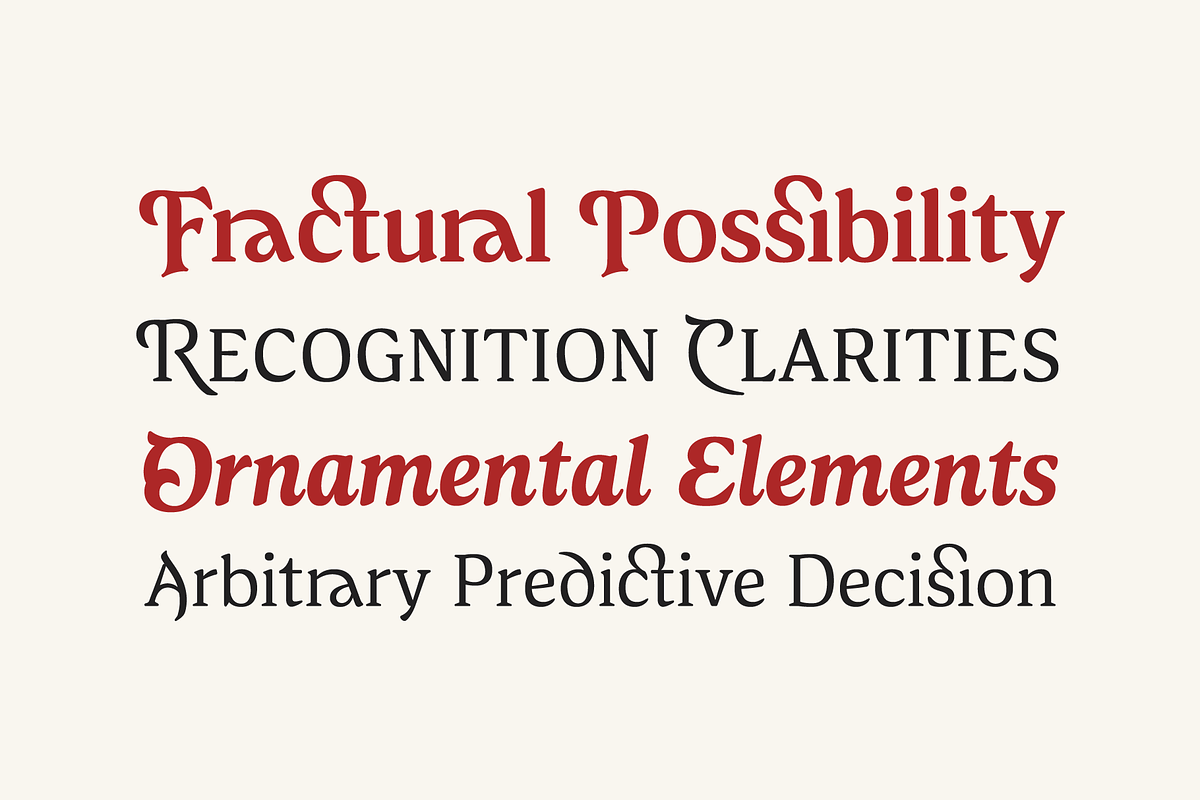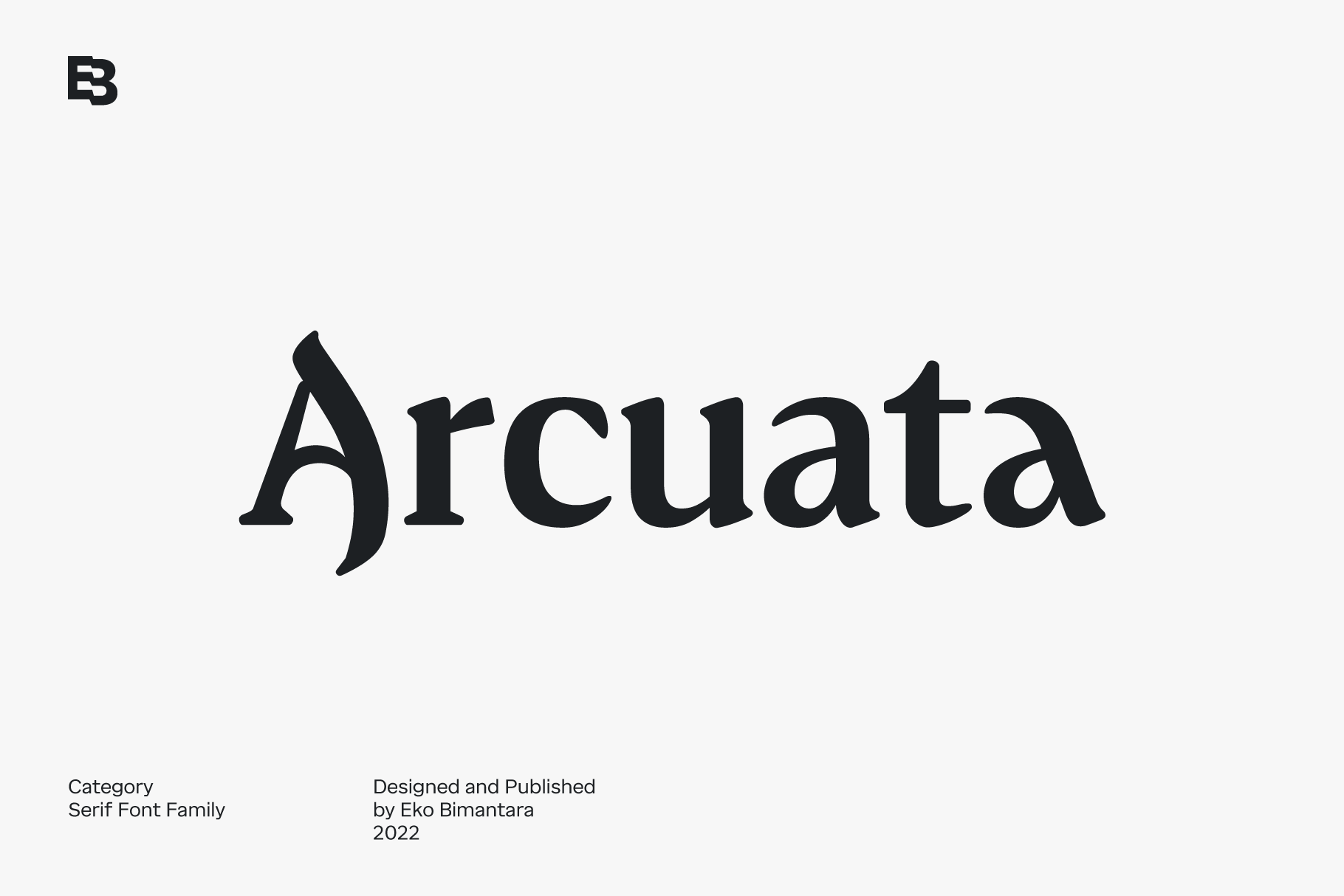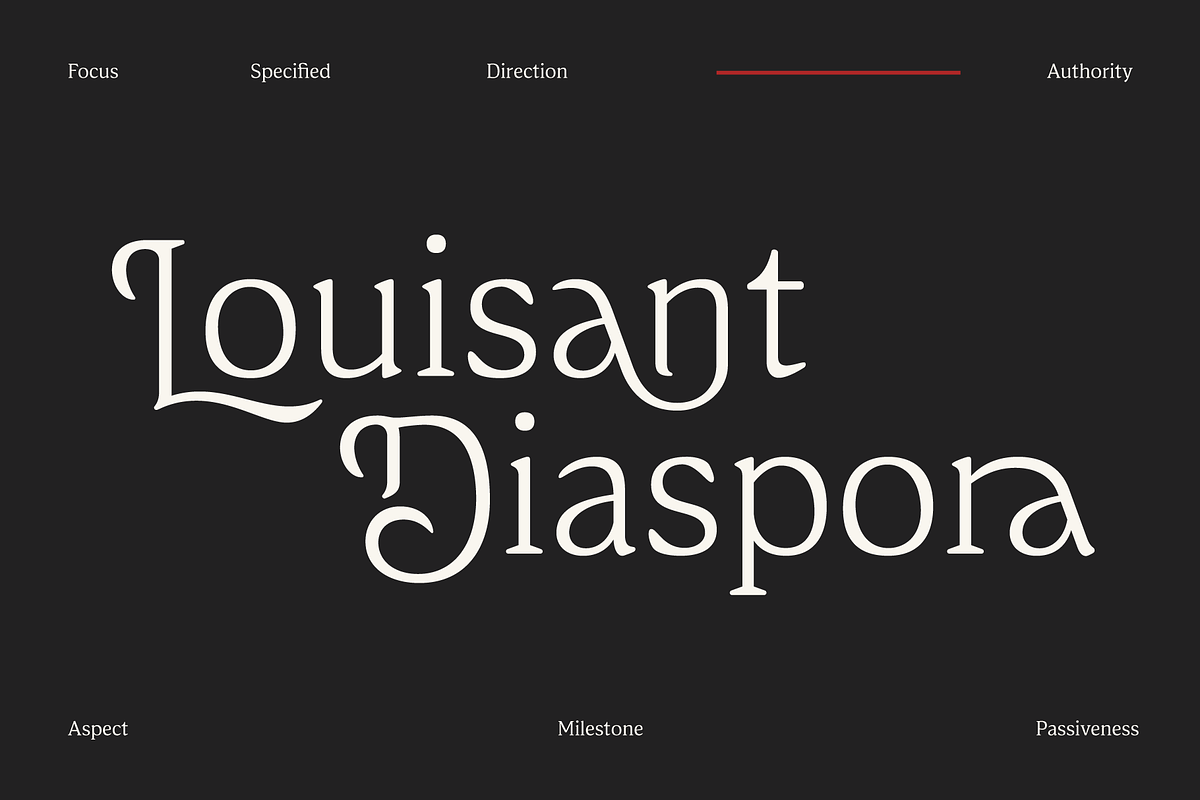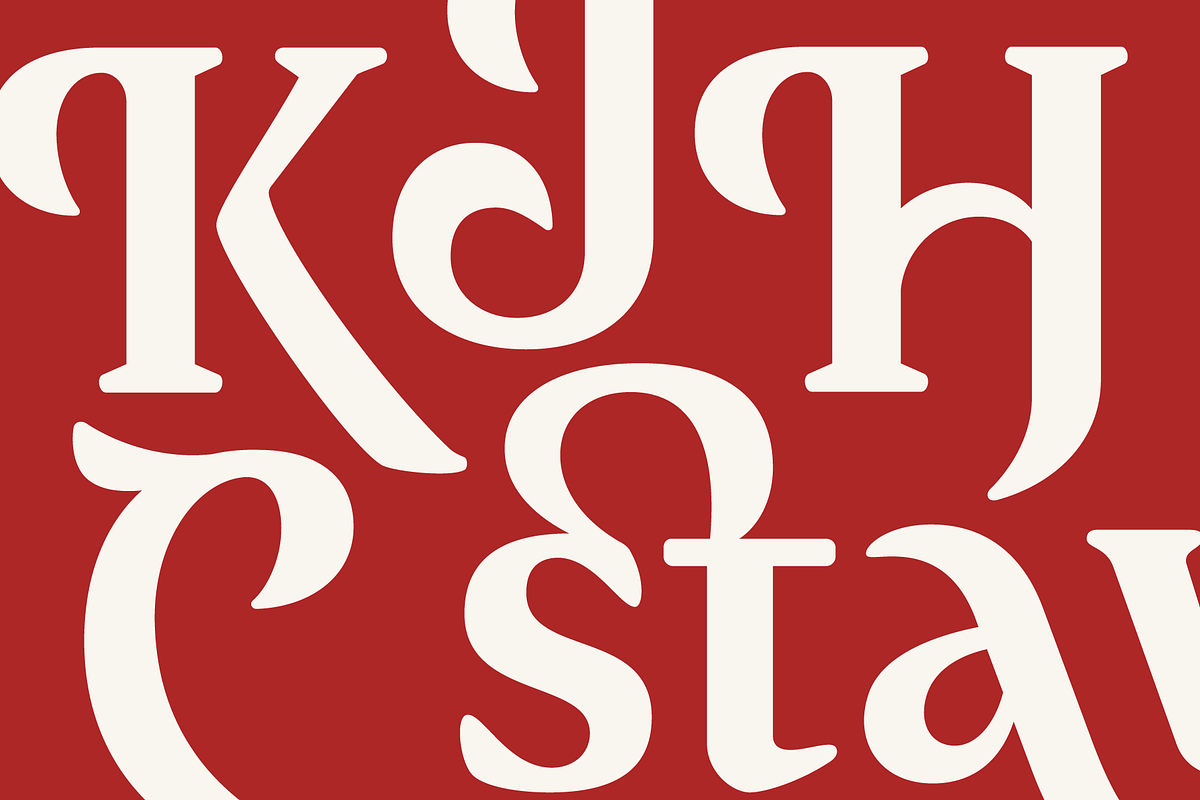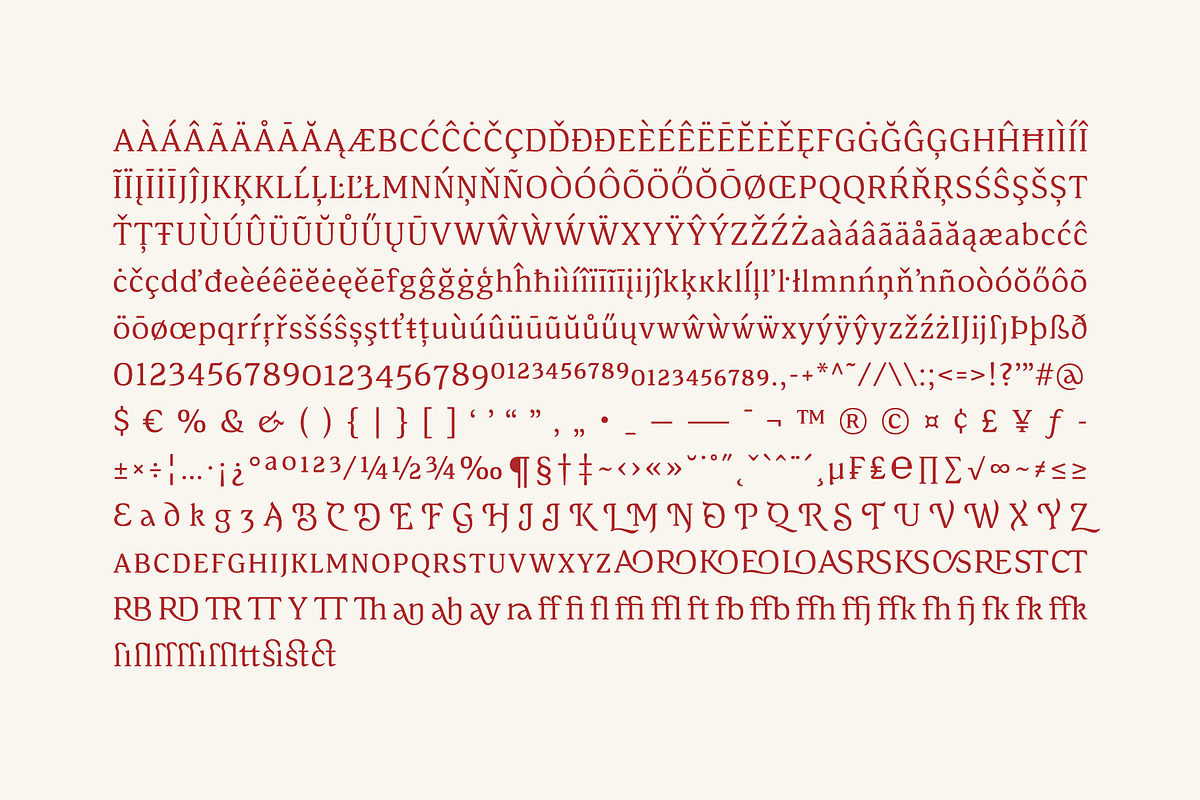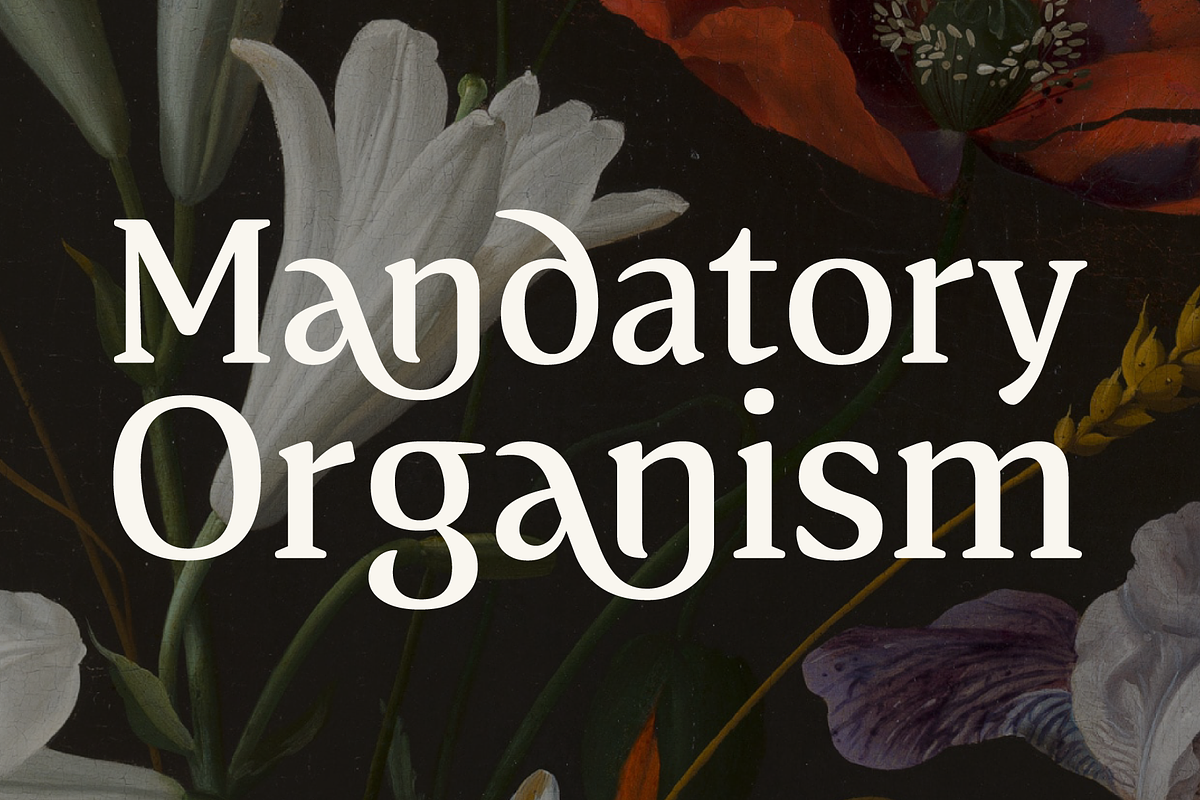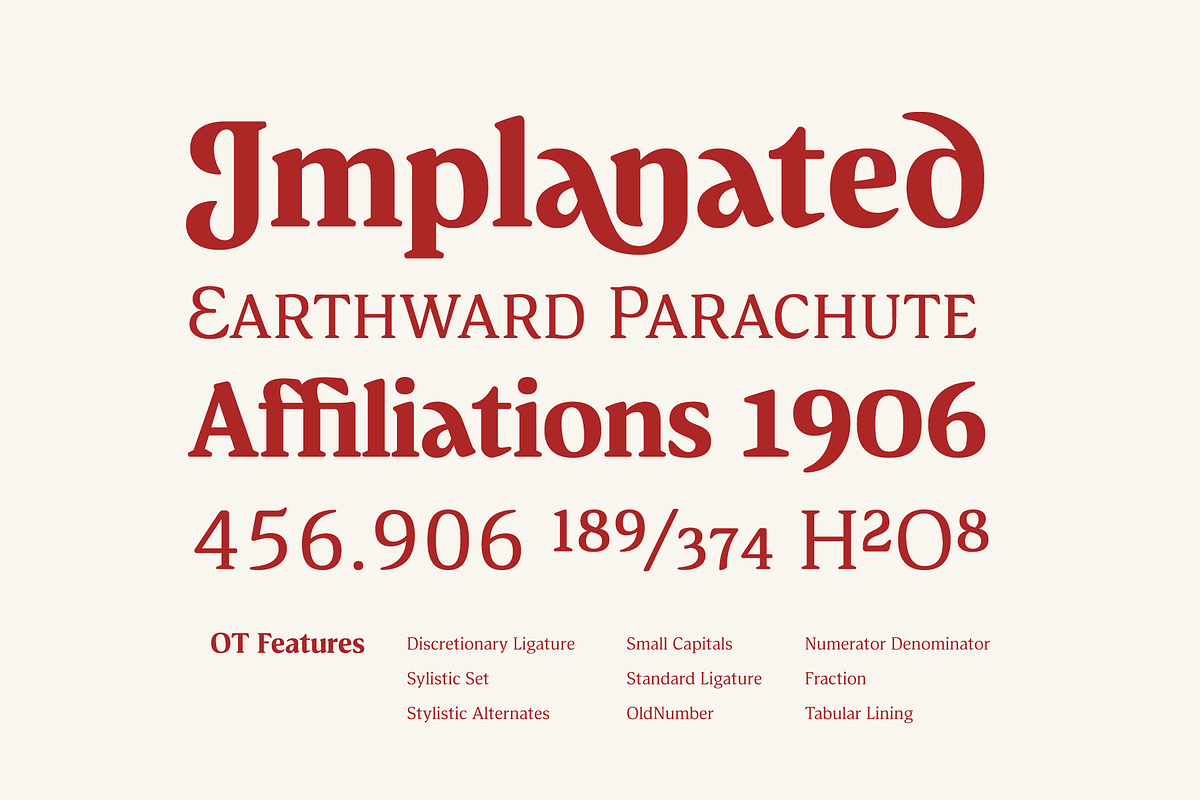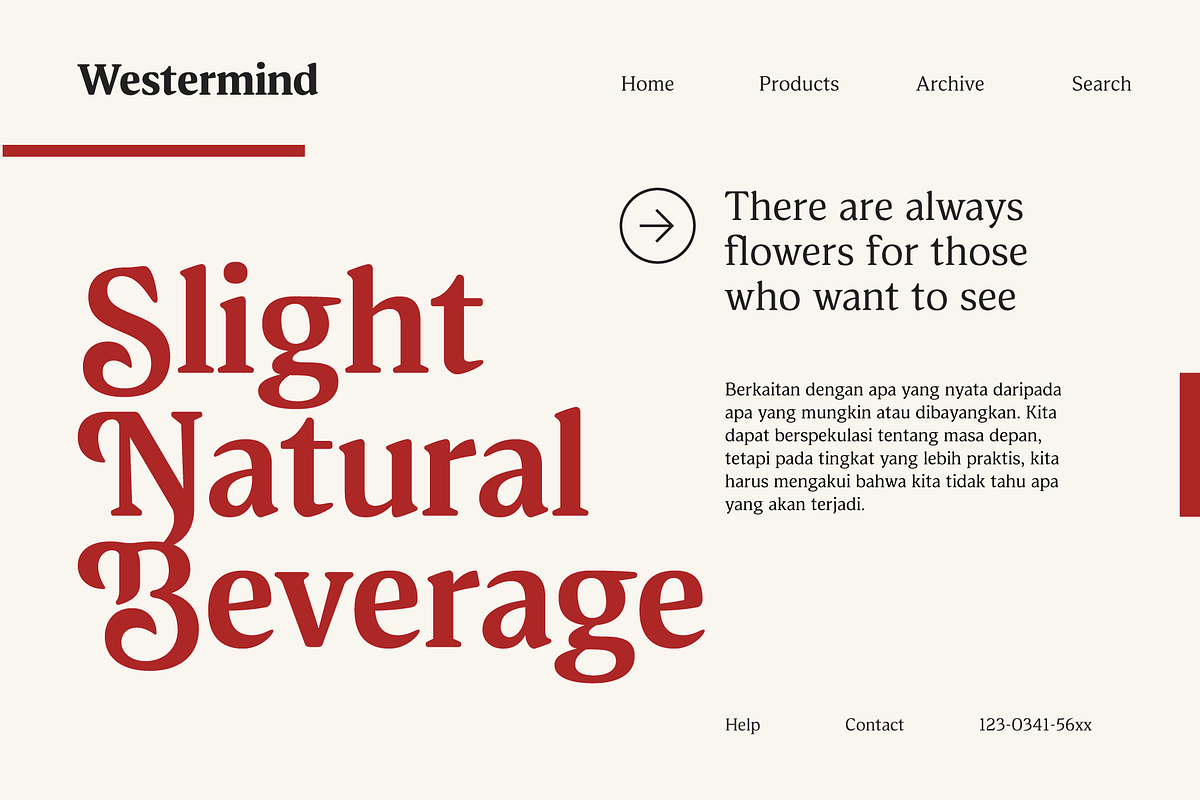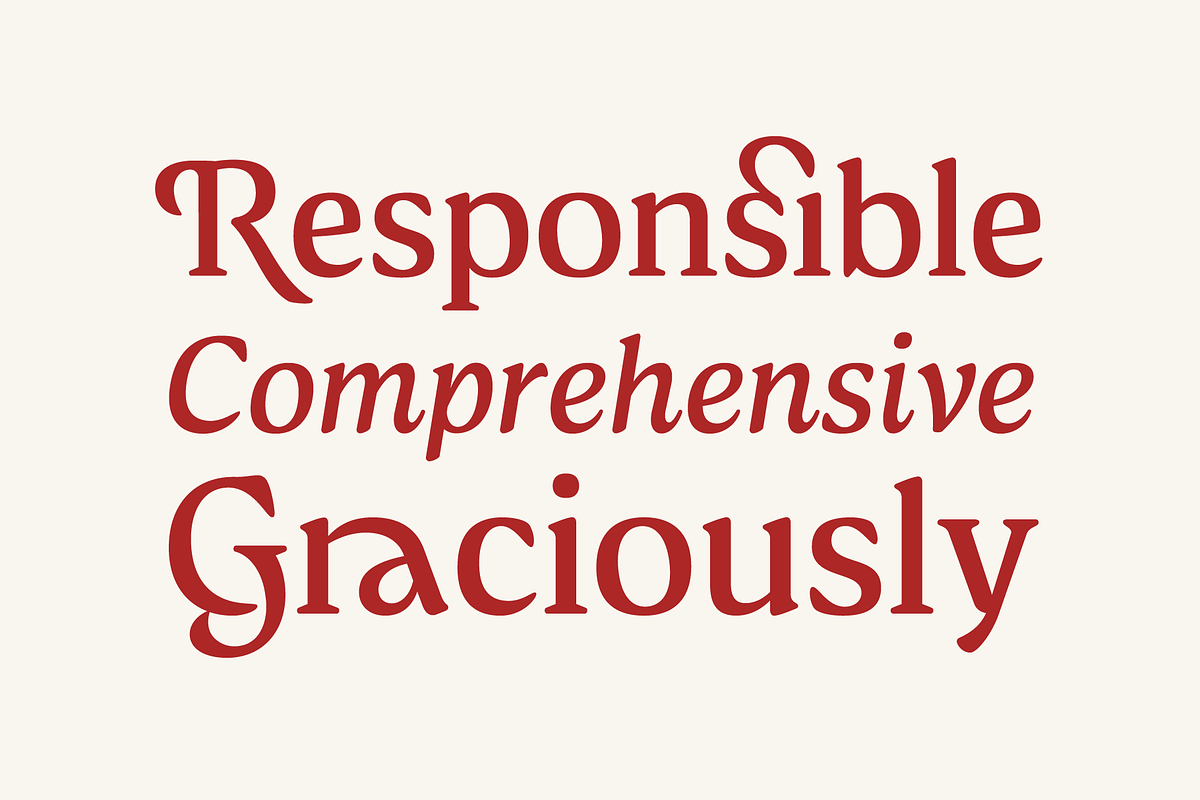
Arcuata; Serif Font Family
Arcuata is a serif font family with soft characteristics. It's featured with some uncial letterforms as alternates, for example in 'a' and 'd' letter, it also has a set of decorative capital letters alternates and ligatures. Arcuata complete family contains 10 styles, consisting of 5 weights from Light to ExtraBold with matching italics.